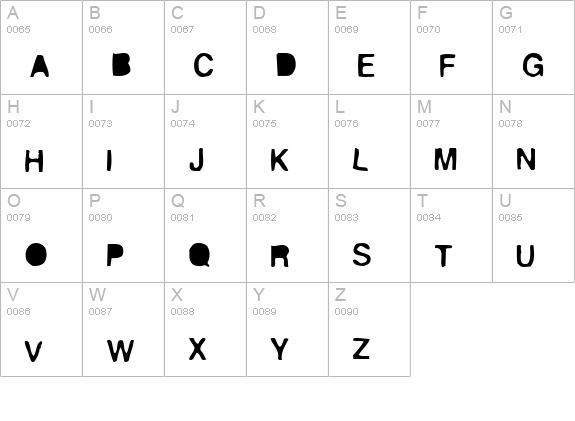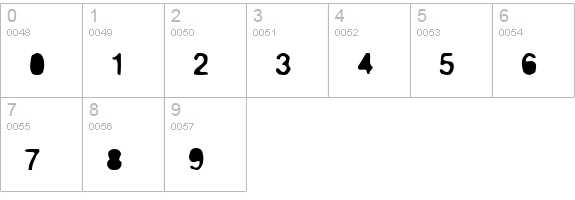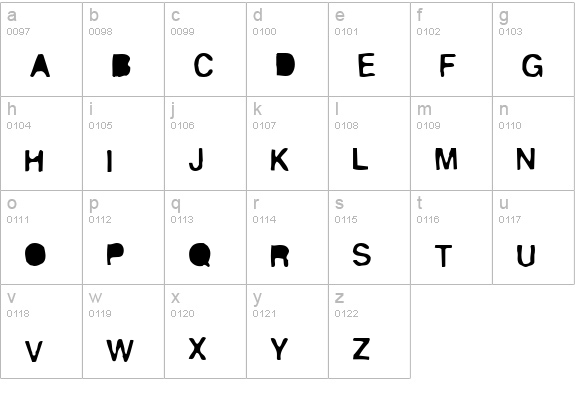
Sticky Font Details
The Sticky font is a fun and playful typeface that adds a touch of whimsy to any design project. With its unique style and sticky appearance, this font is perfect for creating eye-catching headlines, logos, and posters. The Sticky font is freely available to download at FontsMarket.com, making it accessible to all designers looking to add a creative flair to their work. Whether you're working on a digital project or a print design, the Sticky font is sure to make a bold statement and grab the attention of your audience.